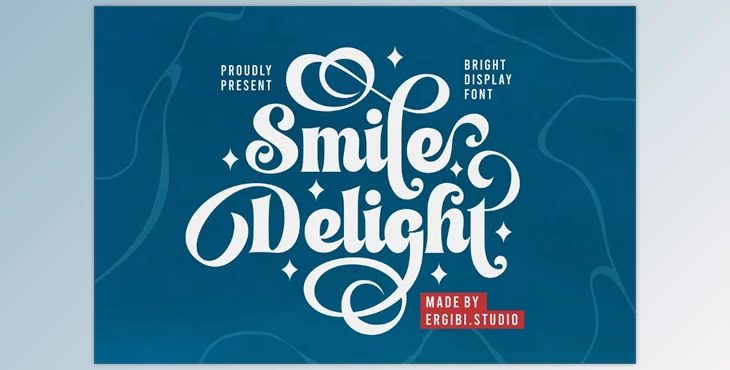
Smile Delight Font:
Smile Delight is a bold display typeface that embodies confidence, joy, and creativity. This font will leave a lasting impression because of its lively curves and stout lines. Stylish branding and packaging Smile Delight works best for posters and other headlining formats. Each design is delighted by the cheerful spirit that Smile Delight brings. Read More Its rigid body guarantees high readability even from considerable distances, and the distinct charms in some of its letterforms add to its modern design and one-of-a-kind beauty. Playful event visuals, Smile Delight captures the imagination in dynamic digital ads, fashion products, and more; spread positivity with Smile Delight.
- Ligatures included